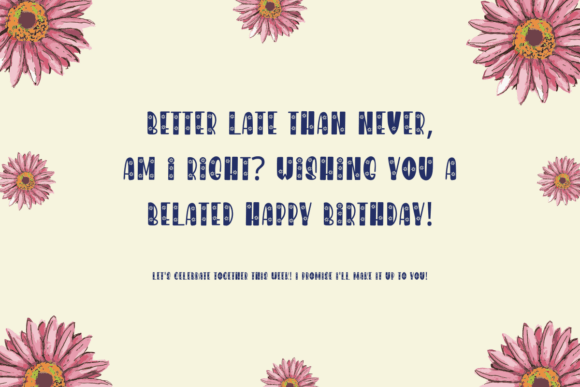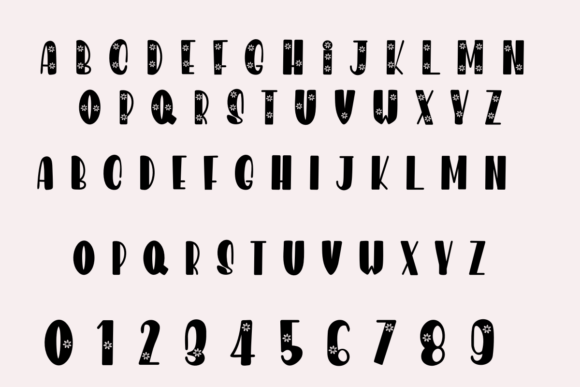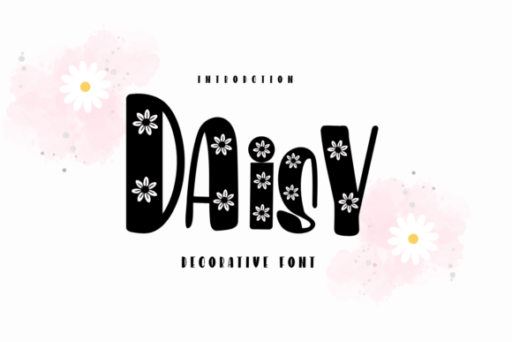
Daisy Font
Daisy is a cute decorative font that looks like flowers. The daisy details on each letter give it a fresh and fun look. You can use it for spring designs, wedding invitations, girly logos, and fun ads. This font gives any project a fun and classy look.
Daisy font brings floral beauty to any project!
Daisy Font is a Decorative Fonts font that brings a professional and versatile look to your projects. Daisy is a cute decorative font that looks like flowers.